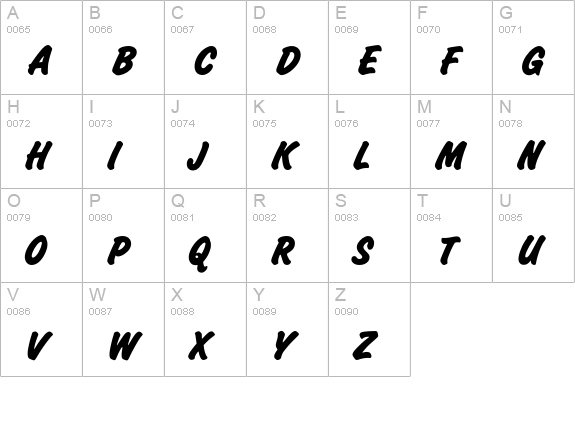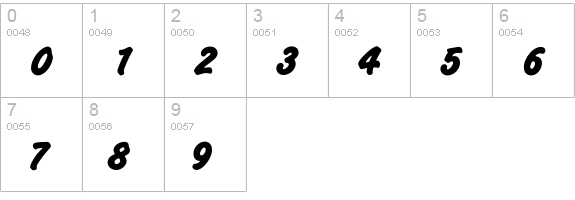
BellamyExtraBold Font Details
BellamyExtraBold is a bold and commanding font that exudes strength and confidence. With its thick strokes and clean lines, this font makes a bold statement in any design project. Whether you are creating a poster, logo, or headline, BellamyExtraBold is sure to grab attention and leave a lasting impression. What's even better is that BellamyExtraBold is available for free download at FontsMarket.com. This means you can easily access this powerful font and use it in your projects without any cost. So go ahead and download BellamyExtraBold today to add a touch of boldness to your designs.